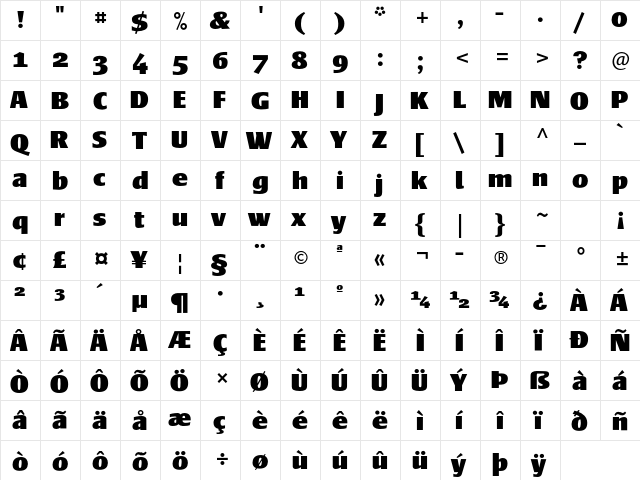
Frisans Std Black
| Designer | Bo Berndal |
Design Context for Frisans Std Typeface
Frisans Std takes a measured approach to typography — its balanced proportions and neutral character make it a reliable workhorse for both digital and print work.